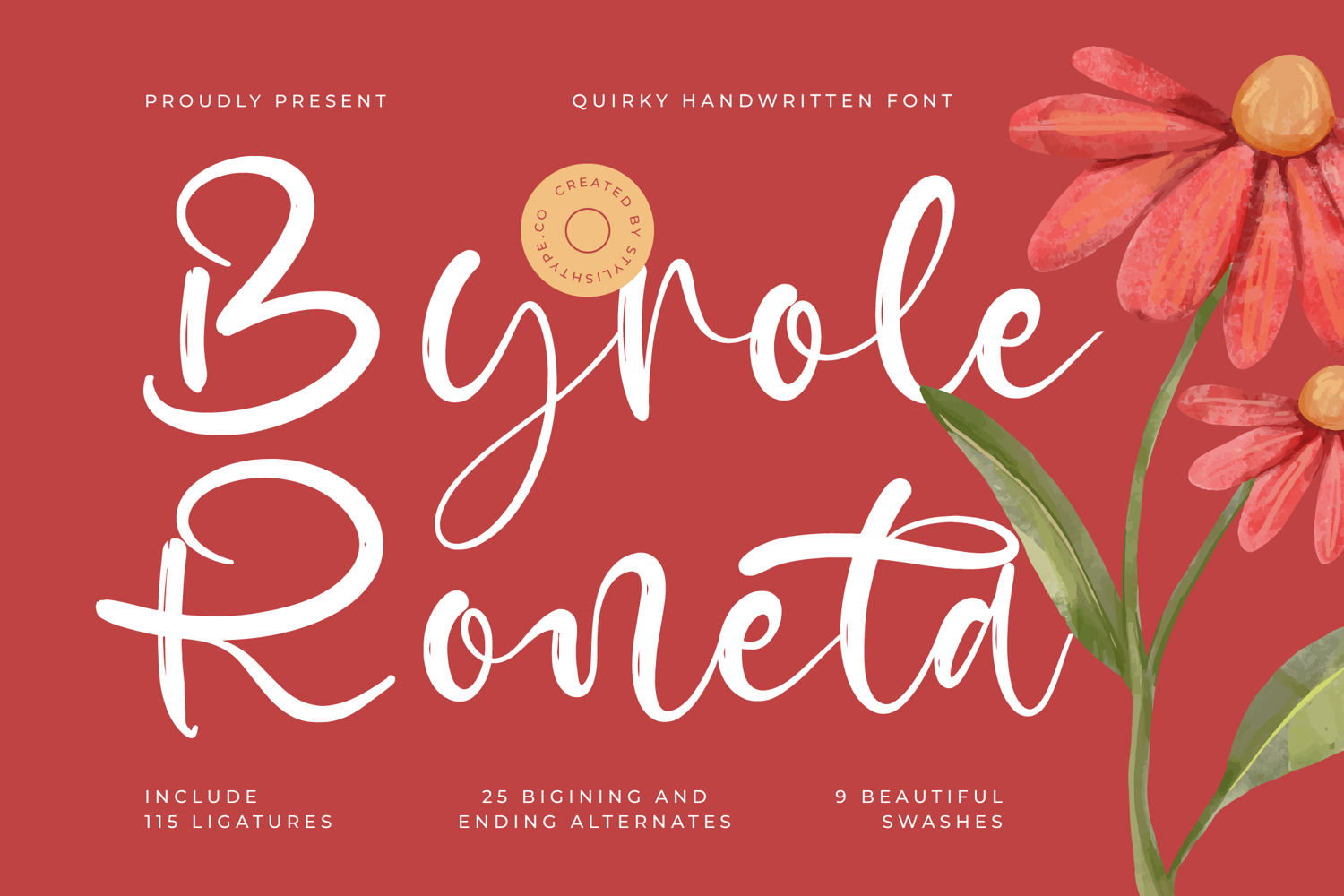
Byrole Roneta - Quirky Handwritten Font
Byrole Roneta
Byrole Roneta Italic
Byrole Roneta - Quirky Handwritten Font , from Stylishtype , Suitable for any projects such as: logos, branding projects, homeware designs, product packaging, mugs, quotes, posters, shopping bags, t-shirts, book covers, name card, invitation cards, greeting cards, label, photography, watermark, special events, and all your other luxury and beautiful projects that need a Luxury Script taste.